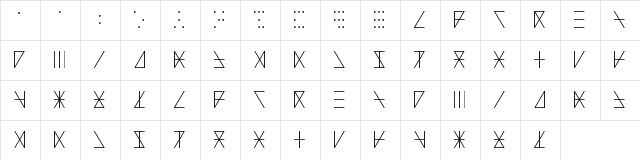
Madeon Runes Regular Regular
Design Context for Madeon Runes Regular Typeface
Madeon Runes Regular takes a measured approach to typography — its balanced proportions and neutral character make it a reliable workhorse for both digital and print work.